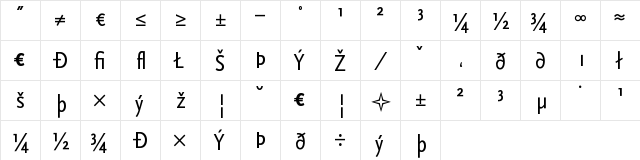
ScalaSans Cond Exp Regular
Design Context for ScalaSans Cond Exp Typeface
ScalaSans Cond Exp takes a measured approach to typography — its balanced proportions and neutral character make it a reliable workhorse for both digital and print work. Its narrow stance lets it pack a punch even in space-constrained designs.